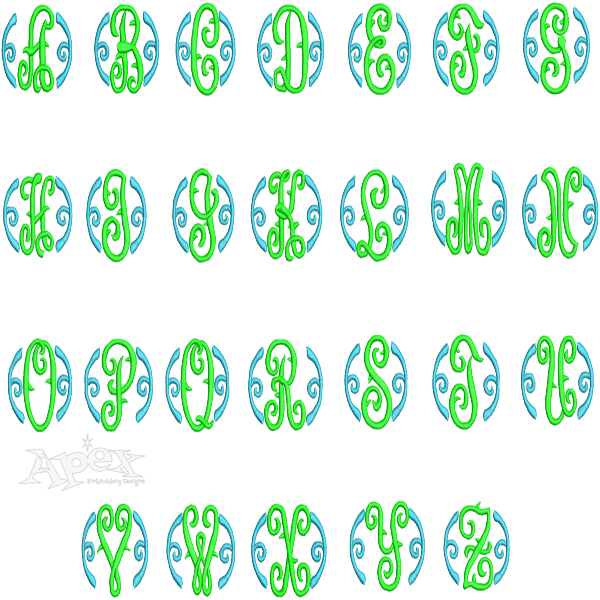
Monogram w/ends Embroidery Font
Monogram w/ends embroidery fonts. Each letter comes with left and right ends attached to each letter. Size: 2" and 3" set